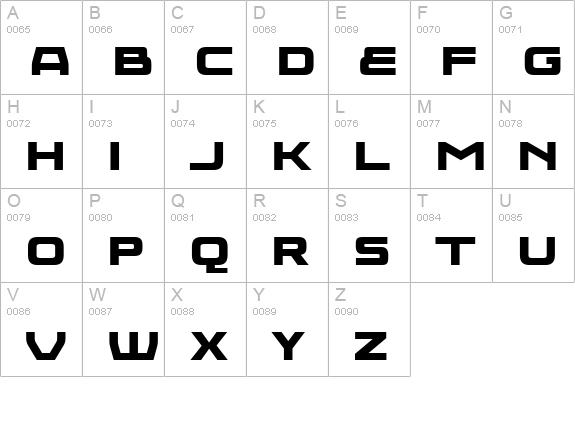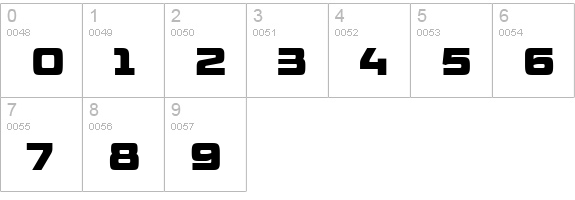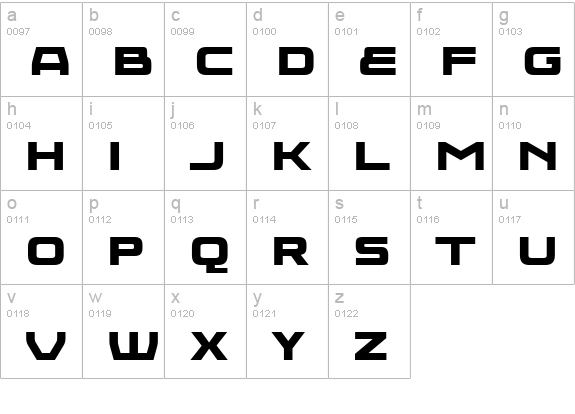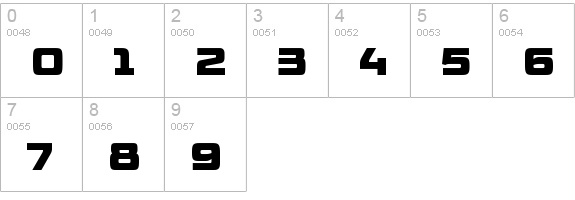
Injekuta Bl font is a stunning display typeface that exudes elegance and sophistication. Featuring bold, sharp letterforms with a modern twist, this font is sure to make a statement in any design project. Its unique design makes it perfect for branding, headlines, posters, and more. What's even better is that Injekuta Bl font is available for free download at FontsMarket.com. So you can elevate your projects with this beautiful typeface without breaking the bank. Don't miss out on the opportunity to add Injekuta Bl font to your font collection today!